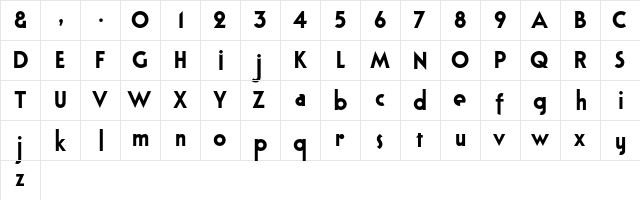
Bloxhall Sample Regular Font Preview
Bloxhall Sample Regular
Bloxhall Sample Regular Font Details
| Foundry | Ana Parracho |
| Designer | Ana Parracho |
Design Context for Bloxhall Sample Typeface
Bloxhall Sample takes a measured approach to typography — its balanced proportions and neutral character make it a reliable workhorse for both digital and print work.